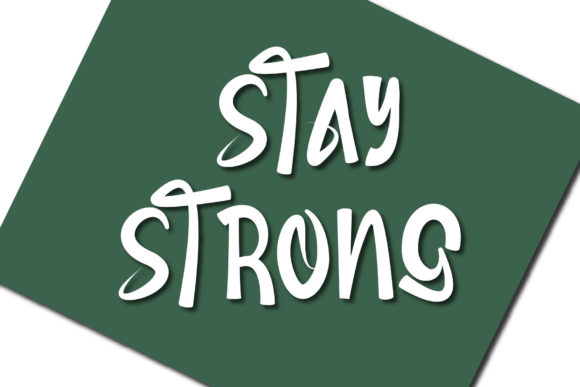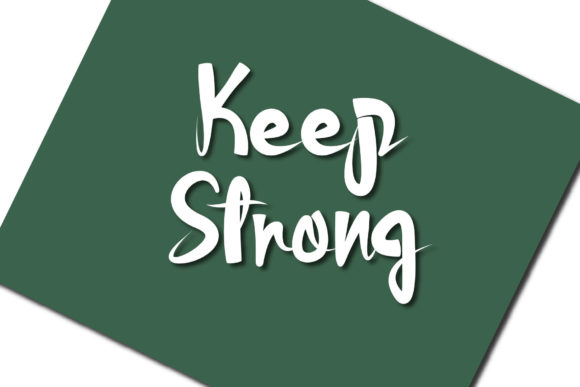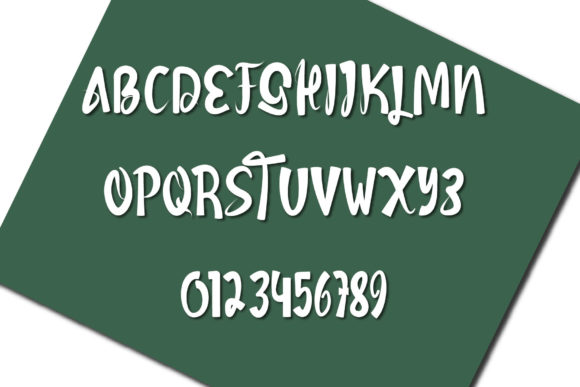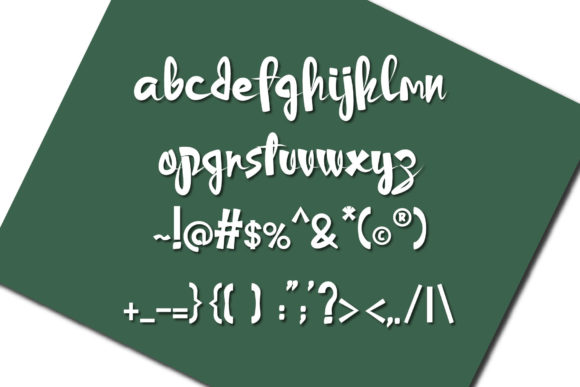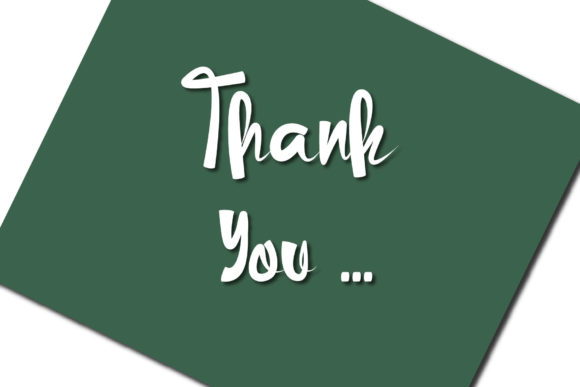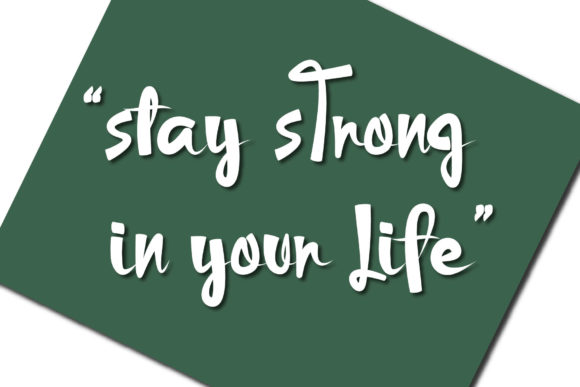
Stay Strong Font
About Stay Strong Font
Stay Strong is a trendy and chic handwritten font. This cool font will look great on a variety of design ideas. It will add a fun and friendly touch to each of your projects!